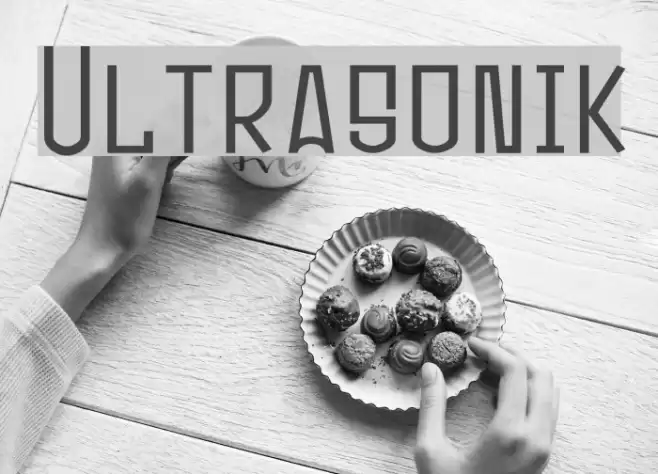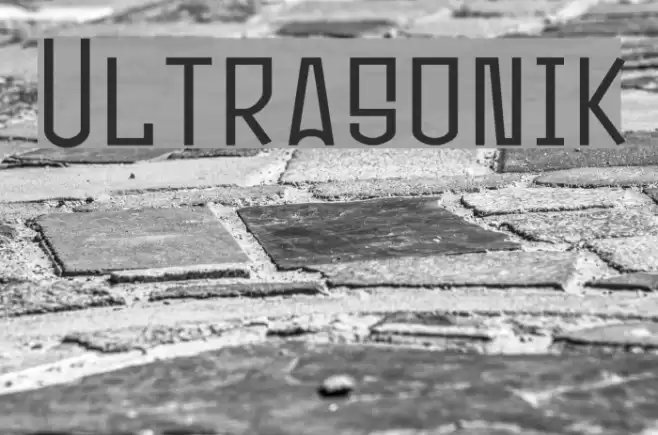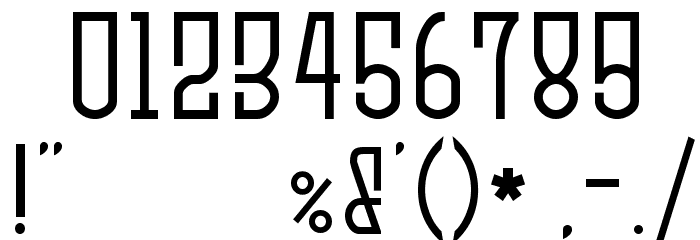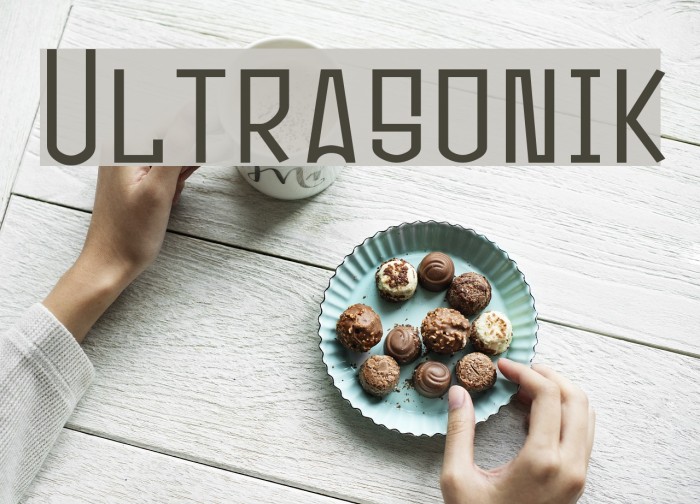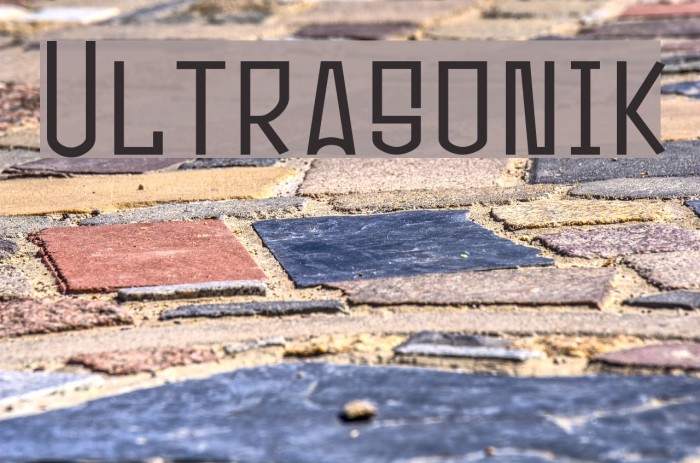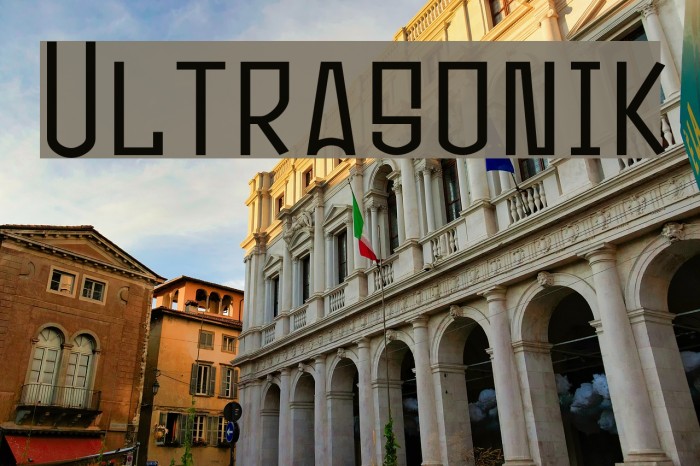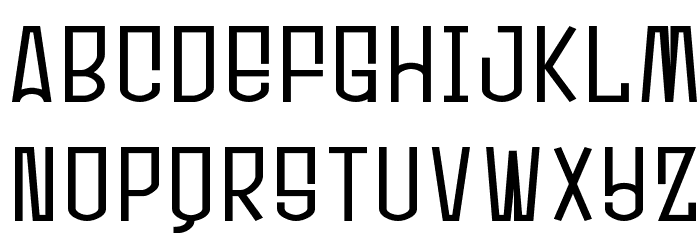
Ultrasonik Font
Ultrasonik Description
This font features a modern and geometric design with a distinct angular style. The uppercase letters are tall and narrow, with sharp edges and a futuristic feel. The lowercase letters maintain the same angular characteristics, creating a cohesive look throughout the typeface. The numbers are bold and consistent with the overall design, making them easily readable. Special characters are uniquely styled, adding to the font's distinctive appearance. The font's clean lines and sharp angles make it suitable for contemporary design projects.
A modern, angular font with a geometric and futuristic style from Futuristic fonts.
- Proposed Projects: Ideal for technology branding, modern posters, sci-fi book covers, and digital interfaces.
- Overall Style: Futuristic and geometric